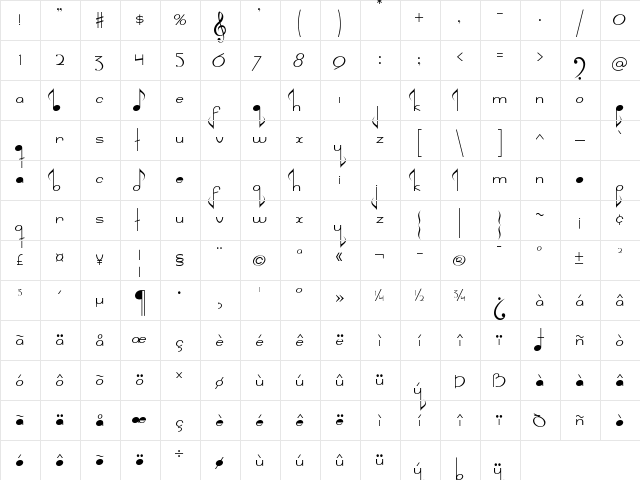
Nada Regular
| Foundry | diq!" DRMWN |
| Designer | diqtam darmawan |
Design Context for Nada Typeface
Nada is a composed and adaptable typeface that performs quietly and consistently across a wide range of design contexts.